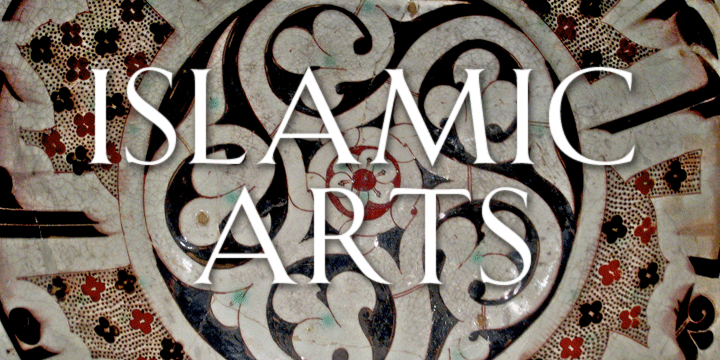
Shàngó Medium
Shàngó™, inspired by Professor F.H. Ernst Schneidler's classic titling typeface released in 1936 as 'Schneidler-Mediaeval mit Initialen', is an elegant design that looks best when used at large sizes, as the original name suggests. The Shàngó family extends the original design, and is available in three styles: 'Classic' (shown here), 'Gothic', and the 3-dimensional Shàngó Chiseled. The poster above features a monotype print of the Yorùbá deity Shàngó.
Available in 3 weights: Regular, Medium, and Bold.